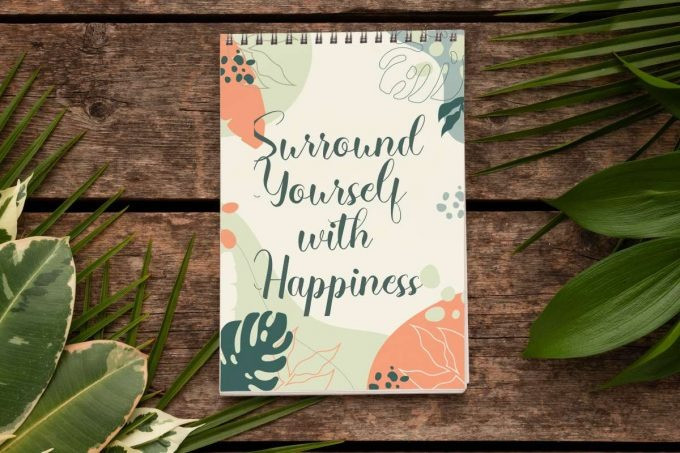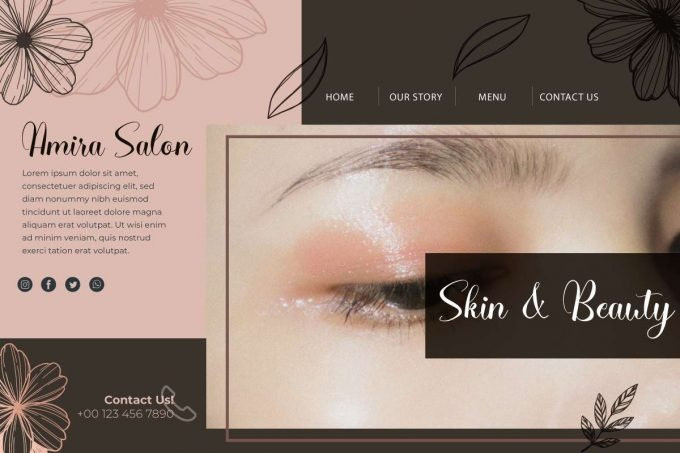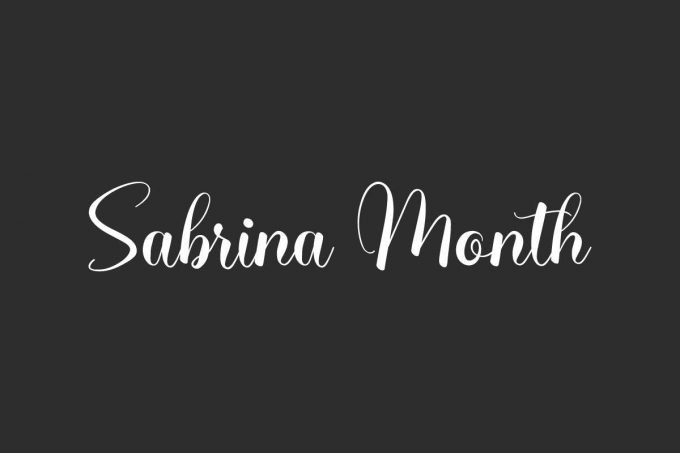
Sabrina Month Font
Sabrina Month Font is a modern calligraphy font with combination of thick and thin lines that are neatly arranged so it’s easy to read and sparks beauty to your designs. The font will be perfect for many industries, such as cosmetic, event or wedding organizer, fashion, florist, jewelry, perfume, salon, skincare, photography, printing, and more!
Sabrina Month Font includes full set of Uppercase and Lowercase Basic Characters, Numerals and Punctuation, and Ligature to make your designs perfect and awesome! Use this font to beautify your designs, including : brand logo, business card, invitation, jewelry box, label, product packaging, quote, screen printing, signage, stationery, title, etc.